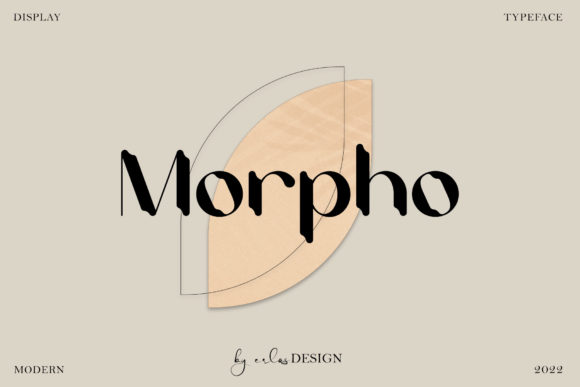
Unleash your creativity with Morpho Font, the ultimate display font designed to make your designs stand out. This stunning font, brought to you by erlosDESIGN, is a game-changer for designers seeking to add a touch of boldness and uniqueness to their projects.
With its dynamic curves and captivating presence, Morpho Font is the perfect choice for crafting eye-catching logos, captivating headlines, and memorable posters. It's not just another font; it's a powerful design tool that empowers you to create impactful visuals that leave a lasting impression.
Whether you're working on a branding project, creating marketing materials, or designing social media graphics, Morpho Font has the versatility to adapt to any theme or style. Its carefully crafted characters exude a sense of playfulness and energy, making it ideal for projects aimed at capturing attention and sparking engagement.
But what truly sets Morpho Font apart is its ability to transform ordinary designs into extraordinary masterpieces. Its distinctive letterforms and dynamic shapes create a visual symphony that draws the eye and captivates the imagination. With Morpho Font, your designs will radiate confidence, creativity, and an unyielding determination to make a statement.
As a designer, you understand the importance of having a font that complements your vision and elevates your creations. Morpho Font is that font. Its versatility and undeniable charm make it an indispensable tool for anyone seeking to make a lasting impact through their designs.
So why settle for ordinary when you can unleash the extraordinary? Embrace Morpho Font today and embark on a journey of creativity that will leave you inspired and your audience captivated. From captivating posters to stunning logos, the possibilities are endless with Morpho Font.